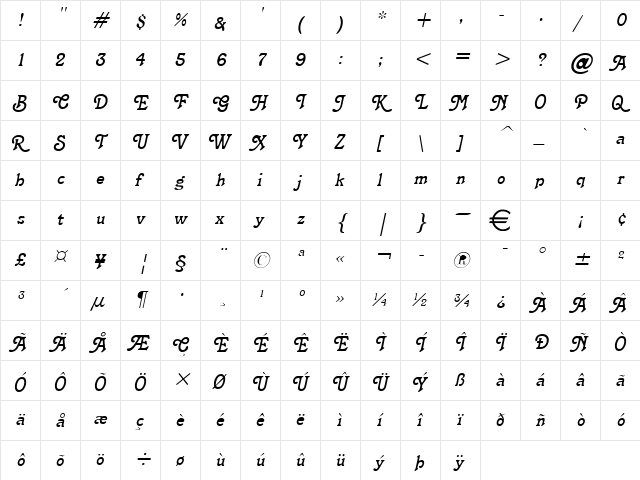
Design Context for TerraNarrow Typeface
TerraNarrow takes a measured approach to typography — its balanced proportions and neutral character make it a reliable workhorse for both digital and print work. The slanted form adds forward momentum and visual energy. Its narrow stance lets it pack a punch even in space-constrained designs.
Pro Tip: Try TerraNarrow for annotation and caption copy alongside an upright companion — the contrast in angle creates a dynamic but ordered typographic system.